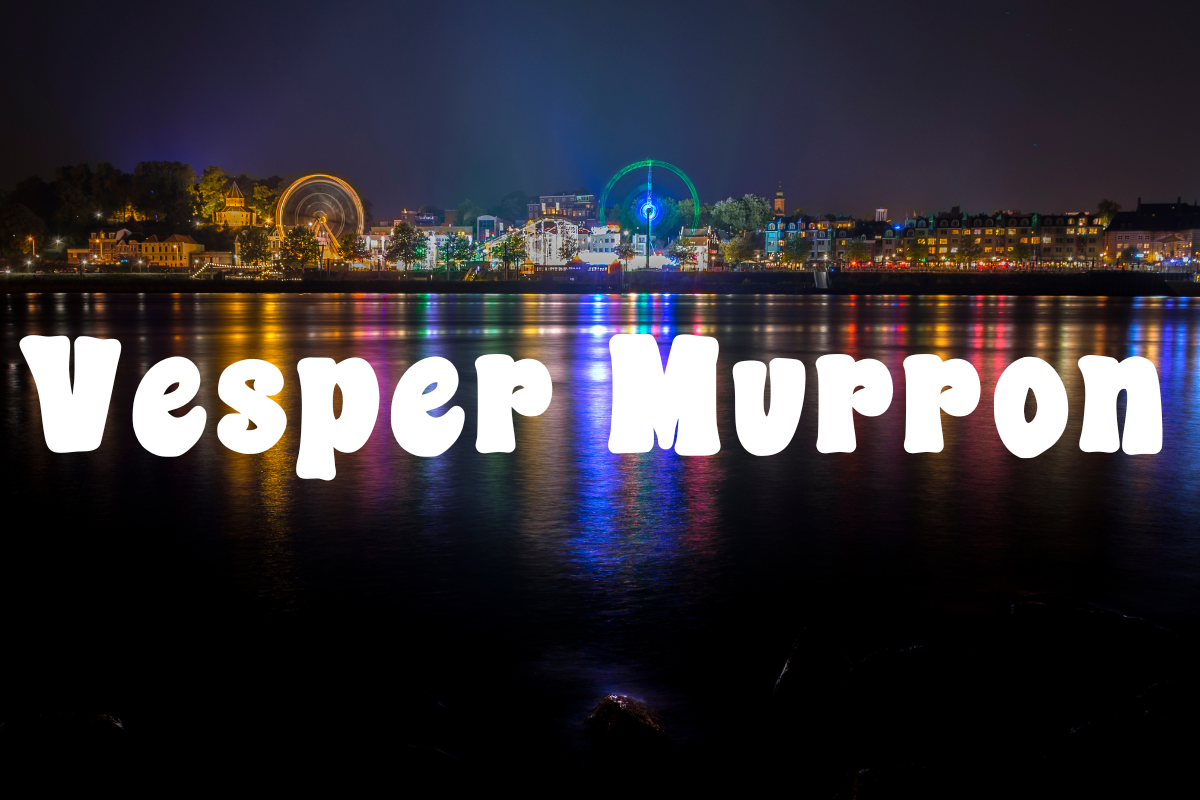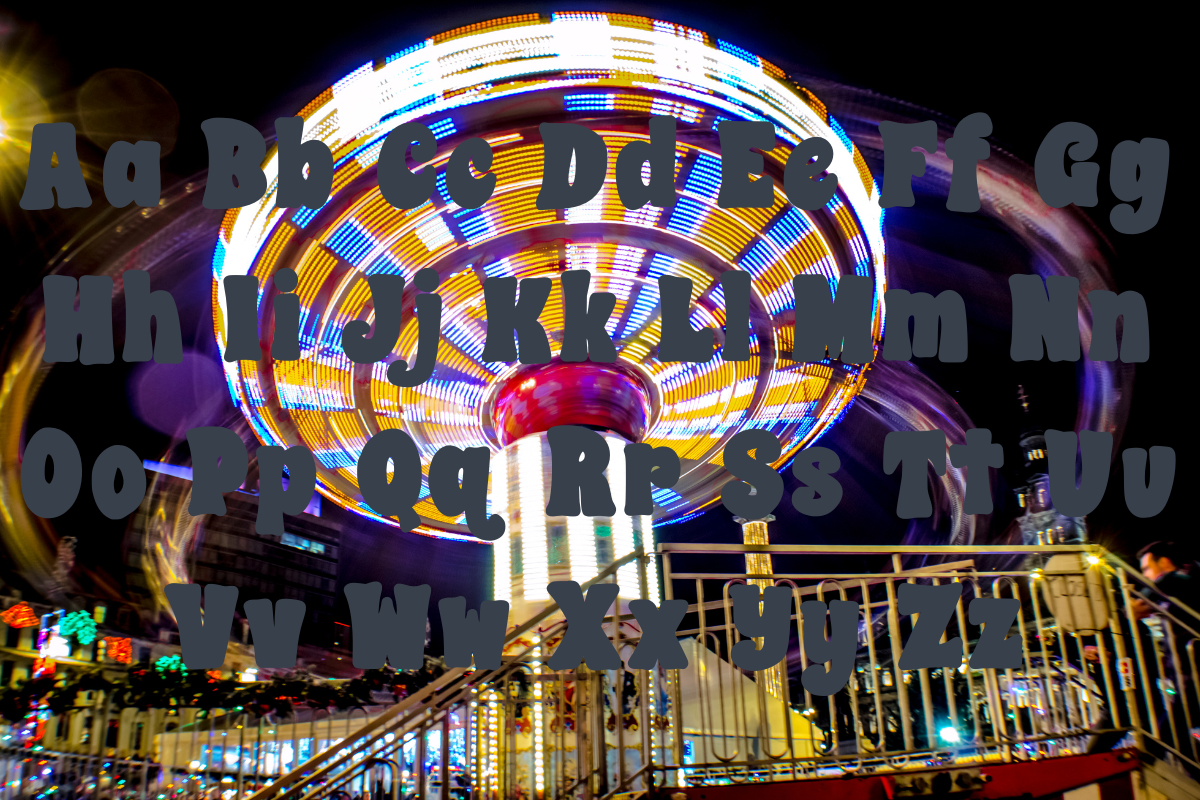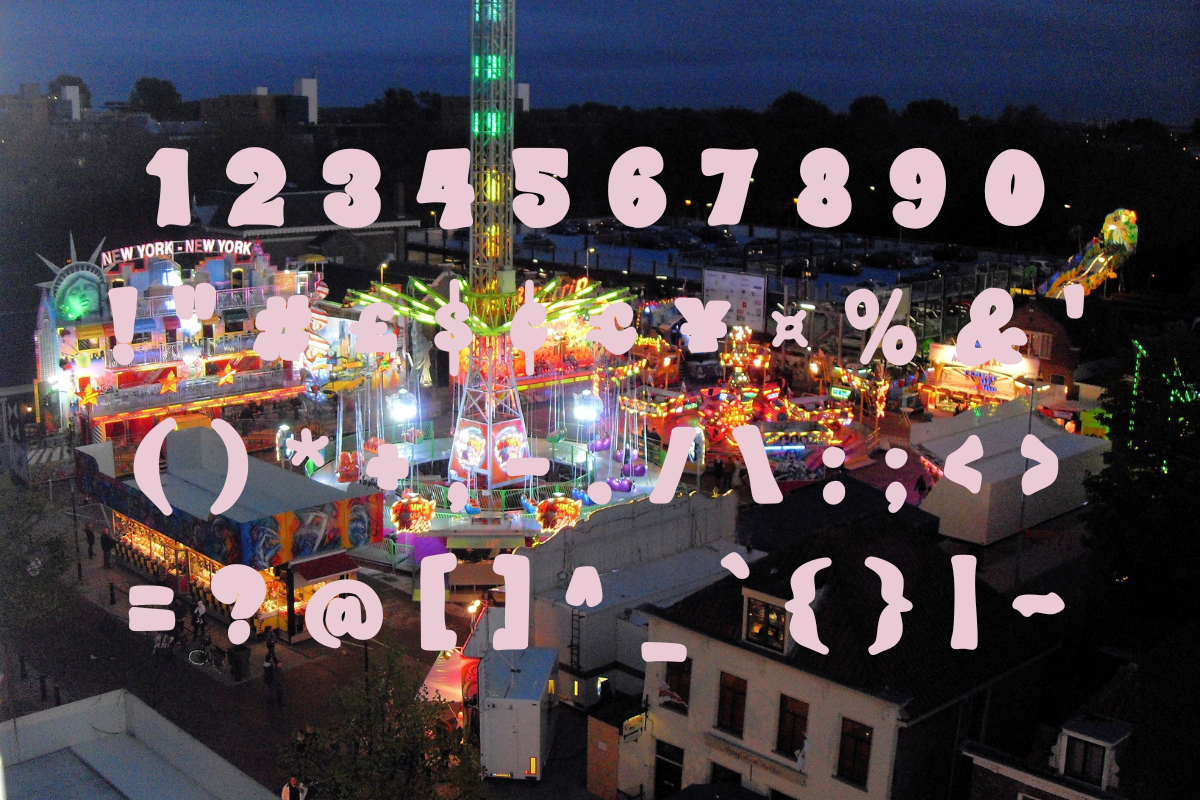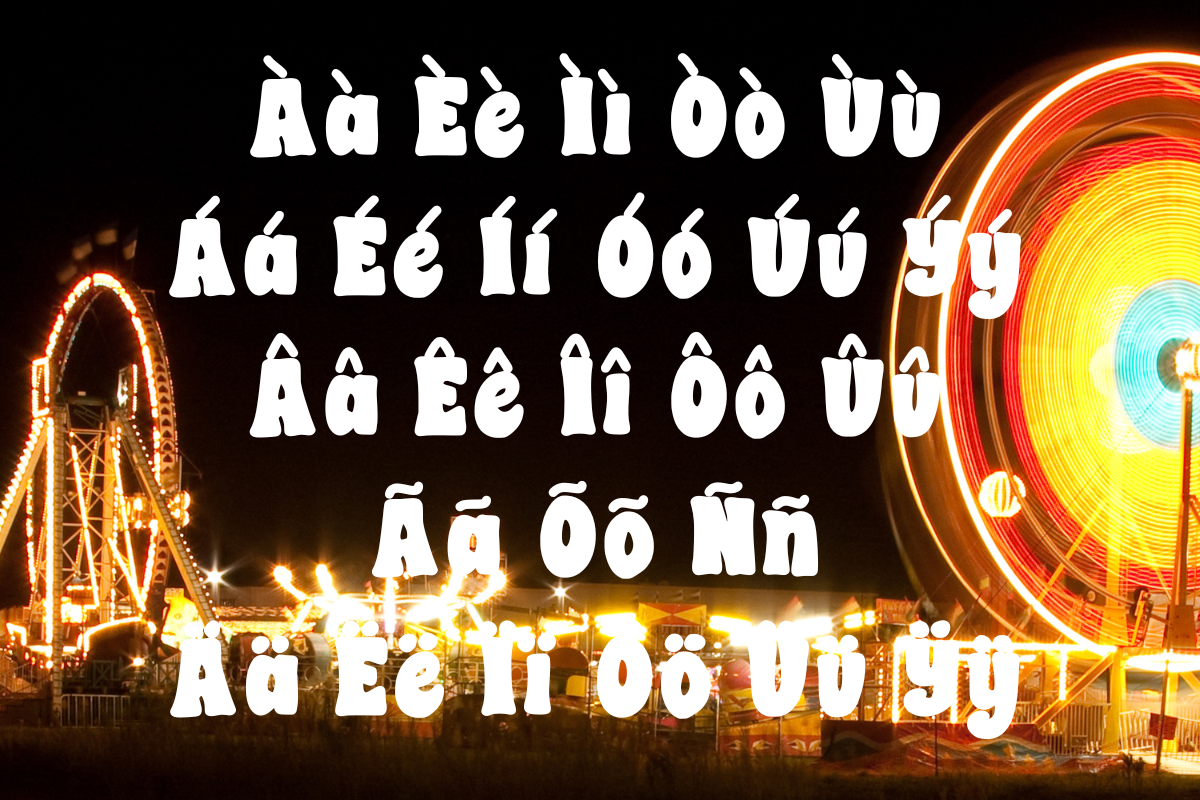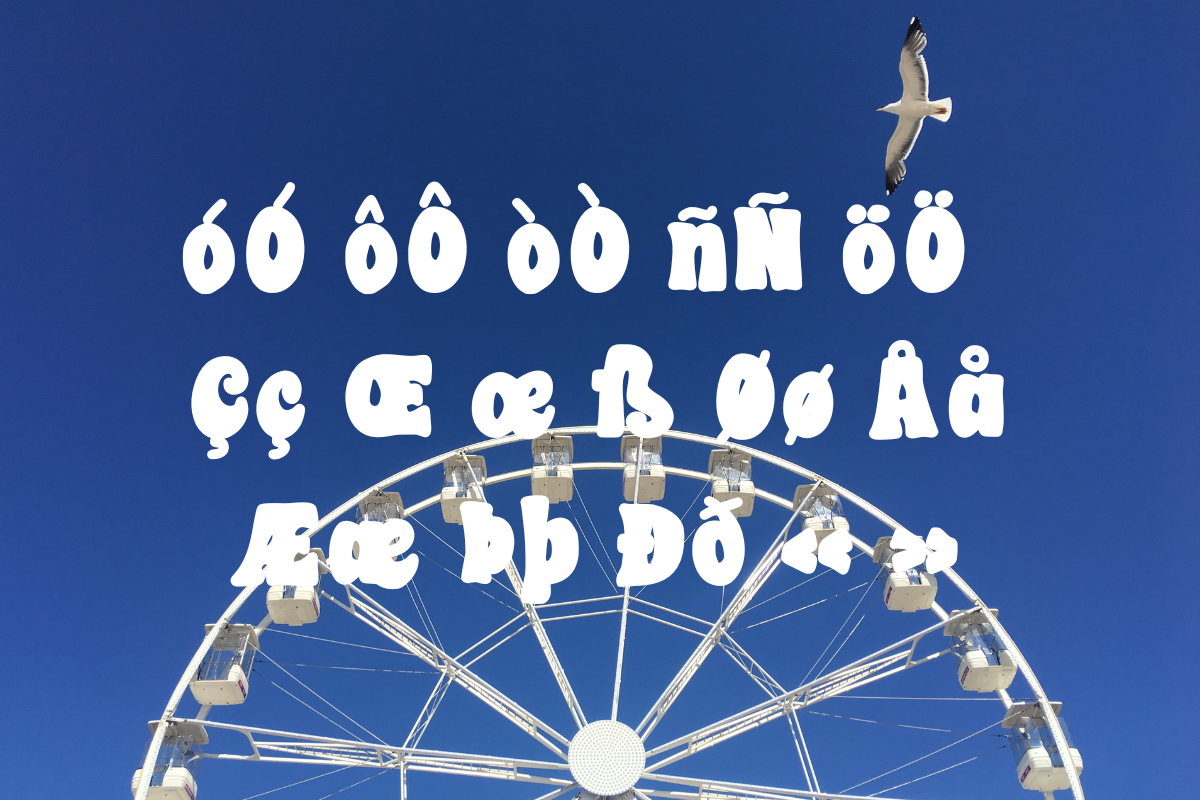
Vesper Murron font
Vesper Marron is a bold sans-serif typeface. Funky, chunky, bold glyphs full alphabet, accents and latin extensions included. .otf .ttf .woff and .woff2 files included.